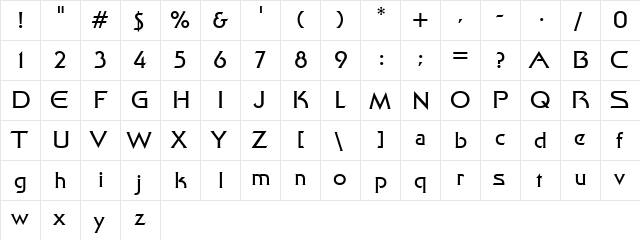
StarTrek Film BT Regular
Design Context for StarTrek Film BT Typeface
StarTrek Film BT offers clean, dependable letterforms without strong stylistic allegiance, making it a practical choice for designers who need flexibility.